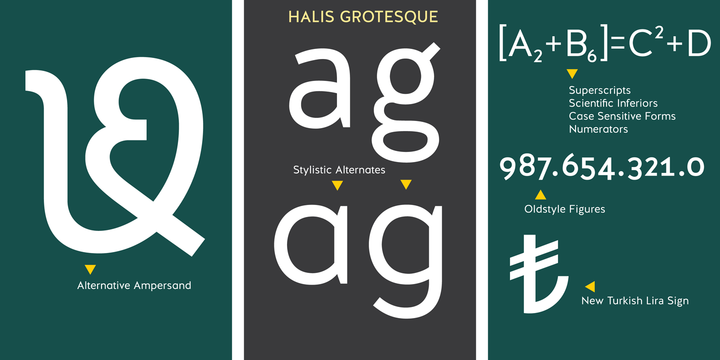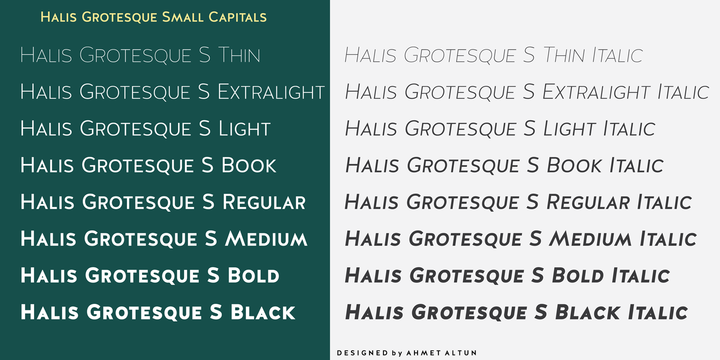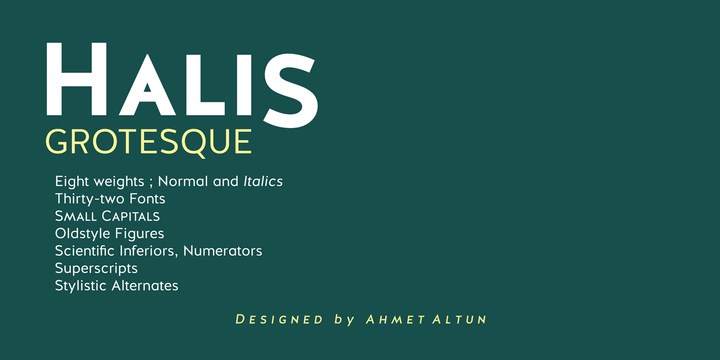
Halis Grotesque is a sans serif and display sans font family. This typeface has thirty-two styles and was published by Ahmet Altun.
The Halis Grotesque font family comes in eight weights of Normal and Italic. In addition, all weights contain small caps in both italic and normal. The name of the font means “pure, clean.” The Halis Grotesque Font Family has the new Turkish Lira Sign as well as an alternative ampersand created by Prof. Halis Biçer, renowned in Turkey for his expertise in typography, calligraphy, and graphic design. That’s why this font’s name is inscribed with a dedication to the venerable Halis Biçer. The spaces between characters are wide enough to be legible even at very small sizes.
With the HALIS GROTESQUE FONT FAMILY, you can create beautiful works for the web, including logos, banners, body copy, and presentations. Halis Grotesque also works nicely in print formats such as posters, T-shirts, magazines, and affiches. Because of its eye-pleasing style, this font is both effective and versatile.